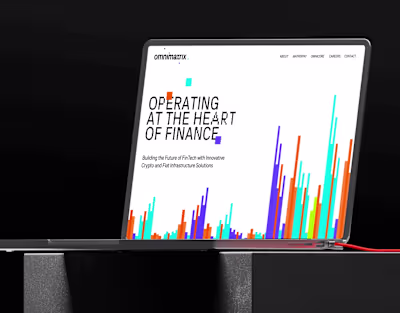
White Label is a variable display font with 5 stylistic alternatives per glyph, crafted for branding and digital products. Ideal for startup identities.
Branding and websites for startups